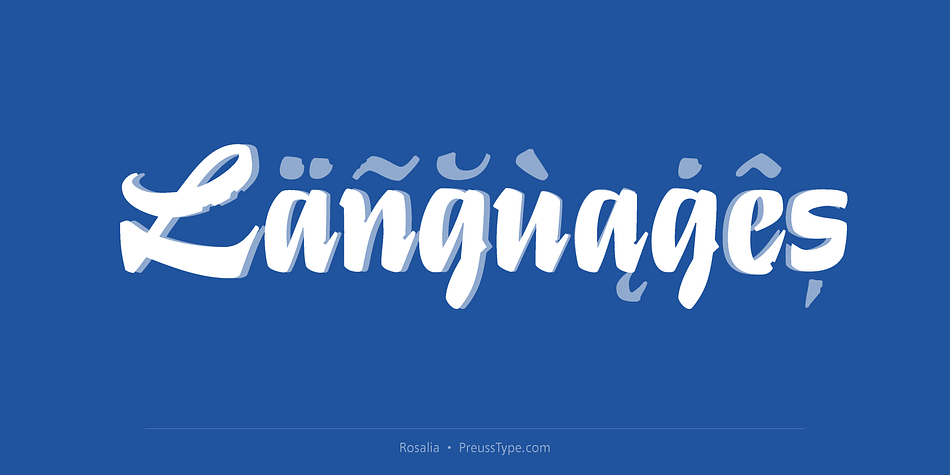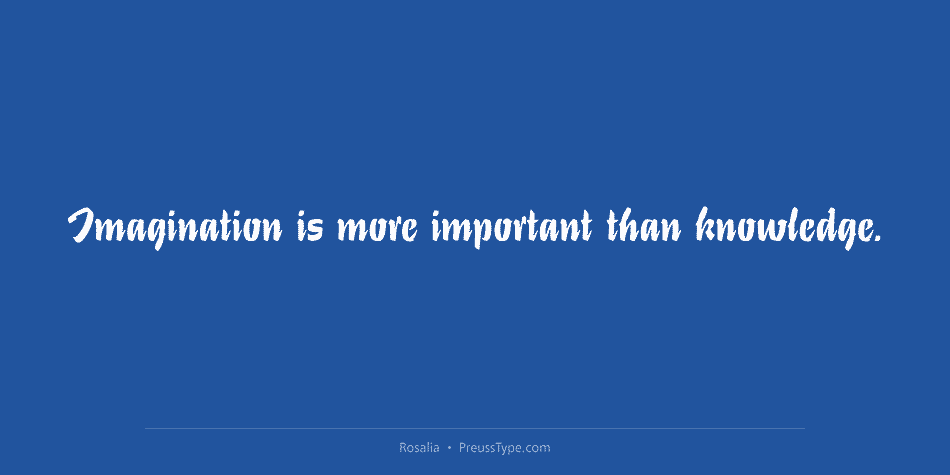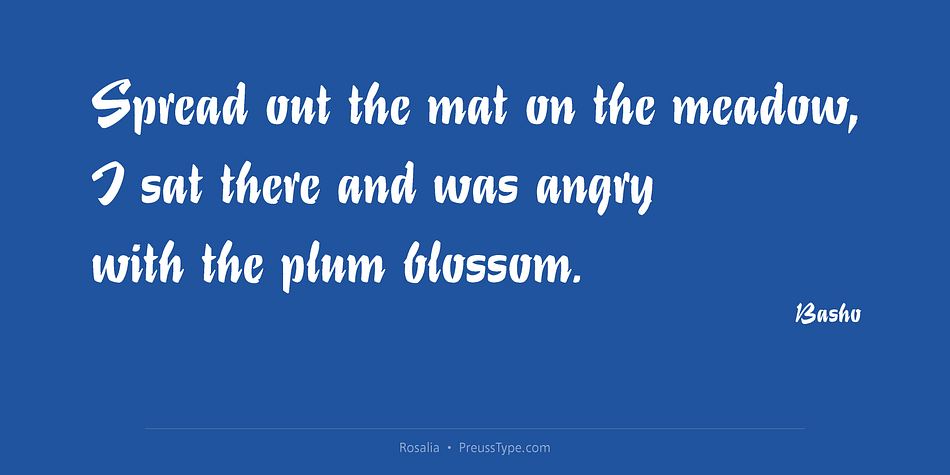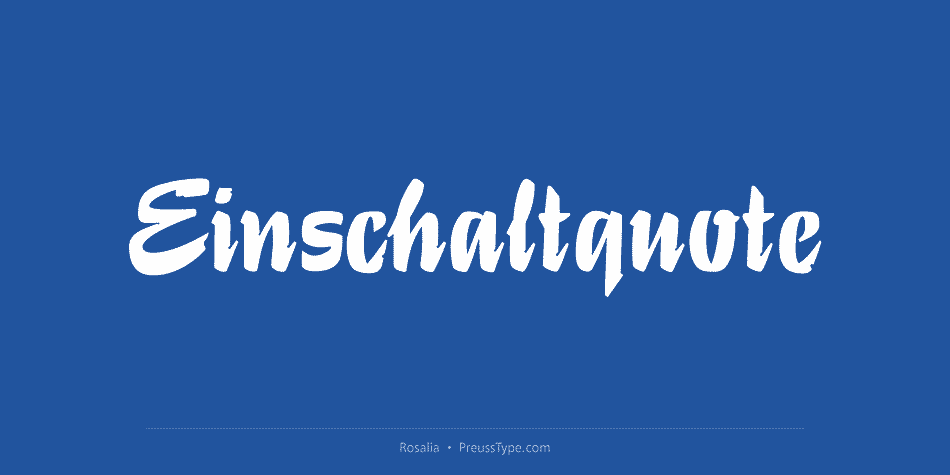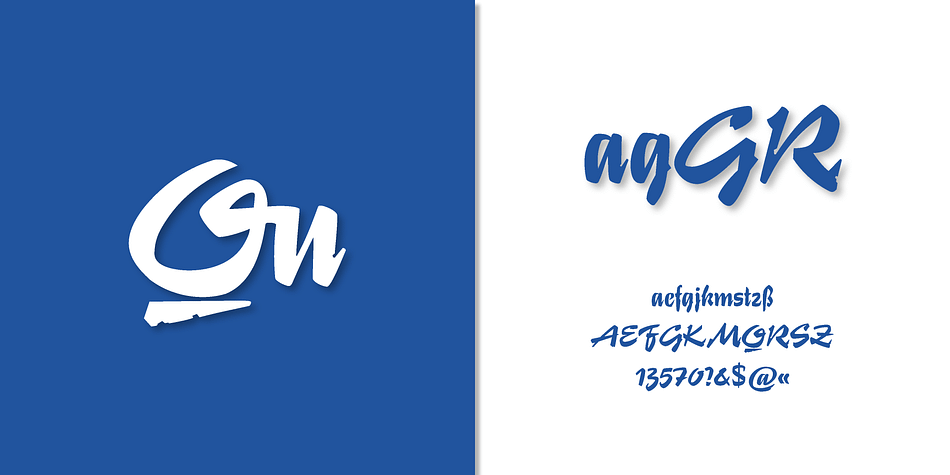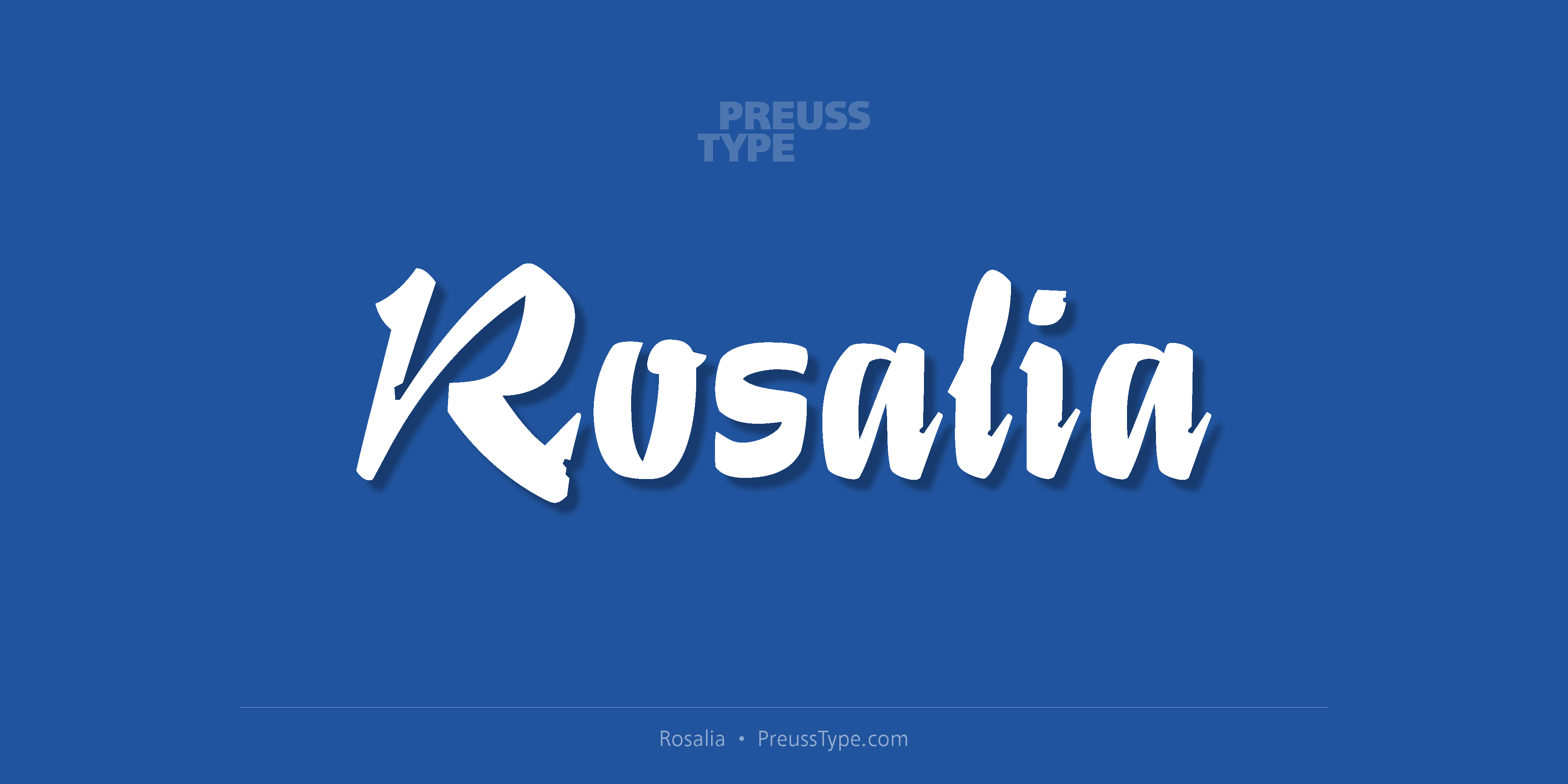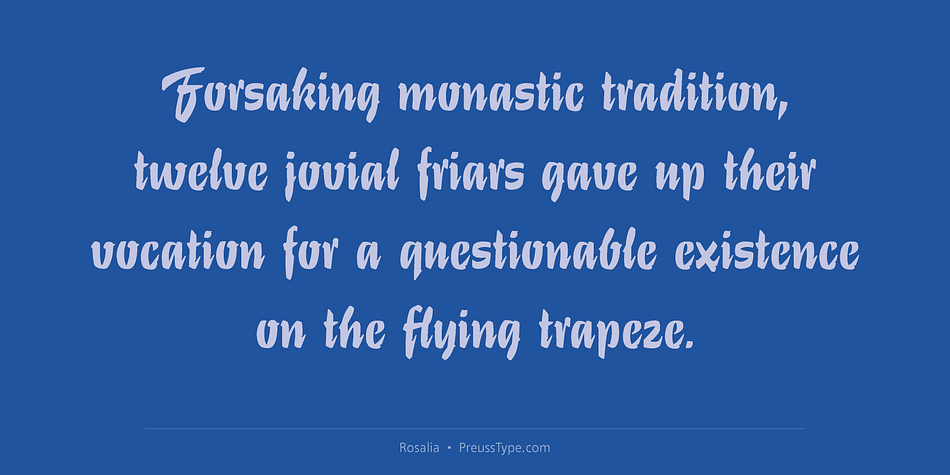
Rosalia
Rosalia is a brush script font published by preussTYPE.
Rosalia is an impulsive typeface designed by Heinz Schumann in 1964 as Stentor for VEB Typoart Dresden. The marked stroke contrast and the spontaneous look typical of handwriting gives the typeface a lively, energetic character.
Stentor is a good choice for headines and texts in middle to large point sizes.